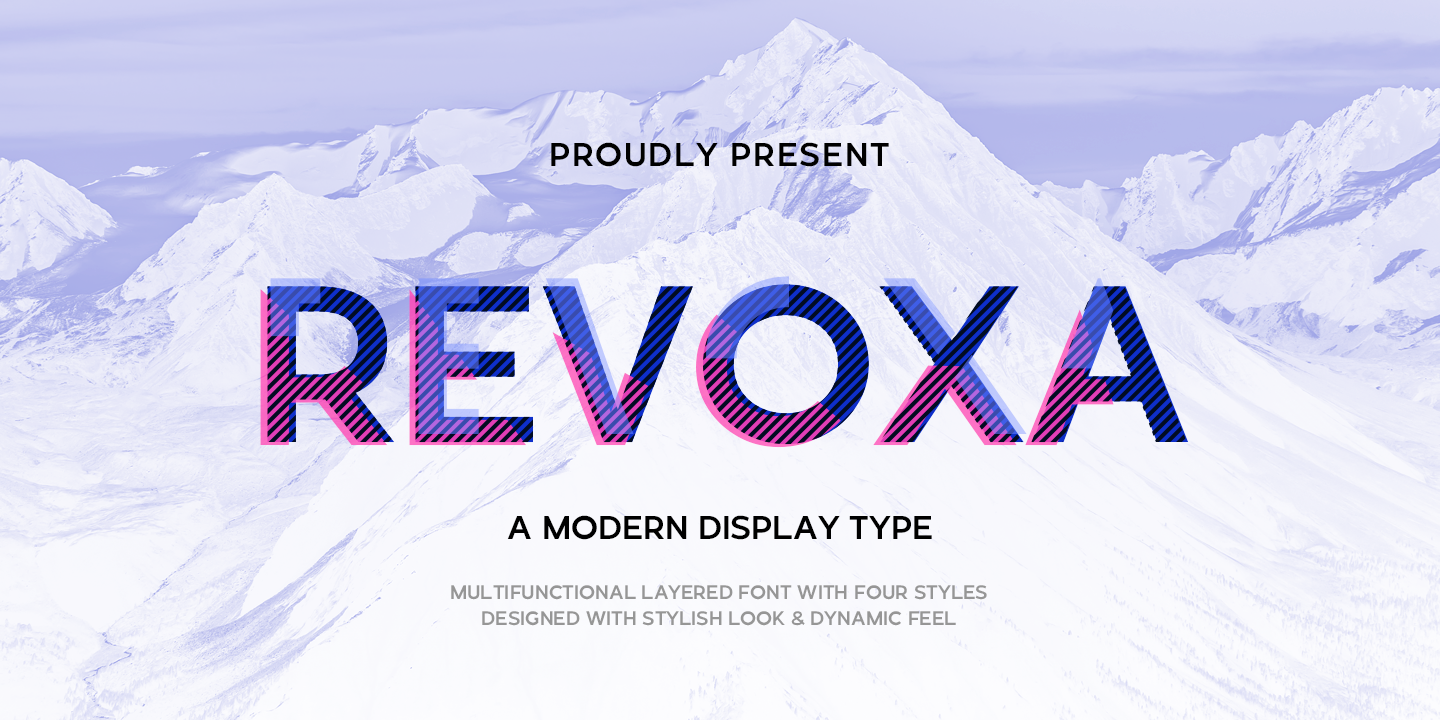
The Revoxa Font is excellent for revolutionary startup branding, disruptive technology companies, innovation conferences, progressive political campaigns, transformative business strategies, groundbreaking research institutions, change management consulting, and bold social movement materials. This powerful typeface works exceptionally well in applications where transformation and revolutionary change need to be emphasized, making it perfect for organizations that want to communicate paradigm shifts and innovative disruption through commanding visual presence.
What makes Revoxa Font exciting is its revolutionary spirit and transformative energy that captures the essence of groundbreaking change and paradigm-shifting innovation. The font's bold letterforms and dynamic character design create an atmosphere of progressive momentum and disruptive power, making it ideal for brands that want to position themselves as catalysts for positive change and industry transformation. Its commanding presence ensures that every application feels like a call to action for meaningful progress.
The Revoxa Font family typically includes regular, bold, and black weights, often featuring progressive alternates, revolutionary symbols, and transformation-inspired elements that enhance its change-oriented appeal. Many versions include innovation indicators, progress arrows, and specialized characters that provide designers with comprehensive tools for creating authentic revolution-themed design projects with genuine transformative energy and progressive visual impact.
For designers working on projects that require revolutionary credibility and transformative authenticity, Revoxa Font Free Download delivers exceptional change-making power. Its ability to instantly communicate innovation and progressive thinking makes it an invaluable choice for startup companies, consulting firms, and any project requiring typography that embodies the unstoppable force of positive change, the courage of revolutionary thinking, and the dynamic energy of transformative progress and industry disruption.